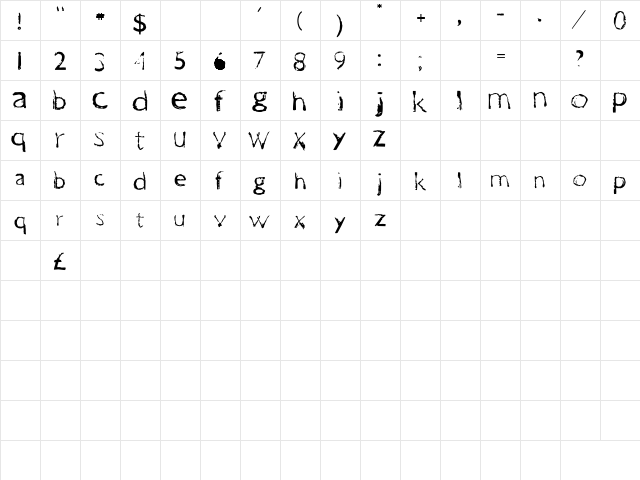
One Way Regular
Design Context for One Way Typeface
One Way is a composed and adaptable typeface that performs quietly and consistently across a wide range of design contexts.